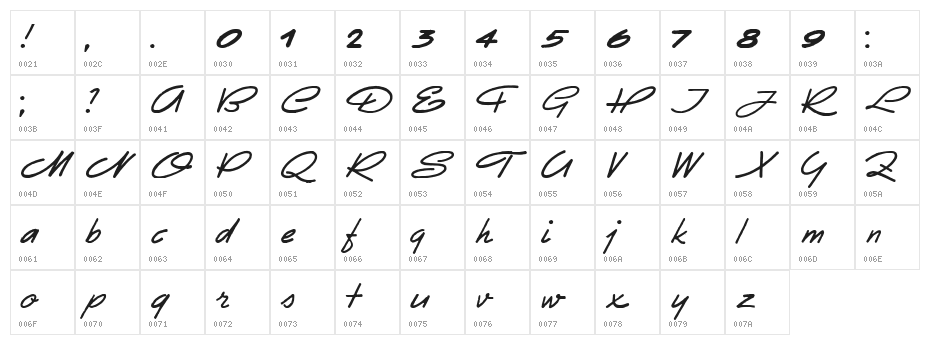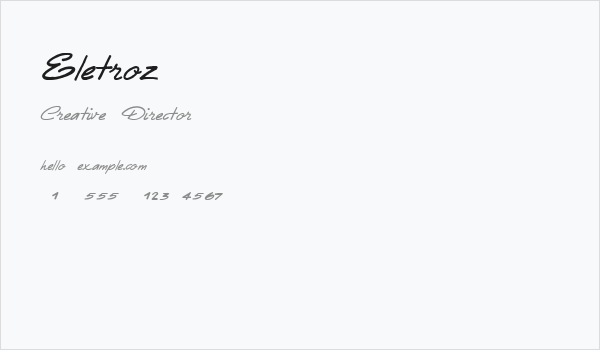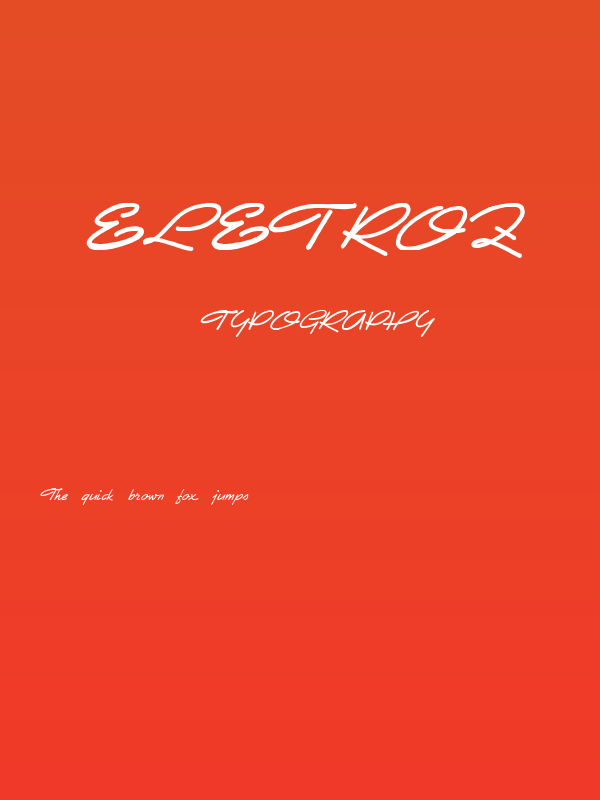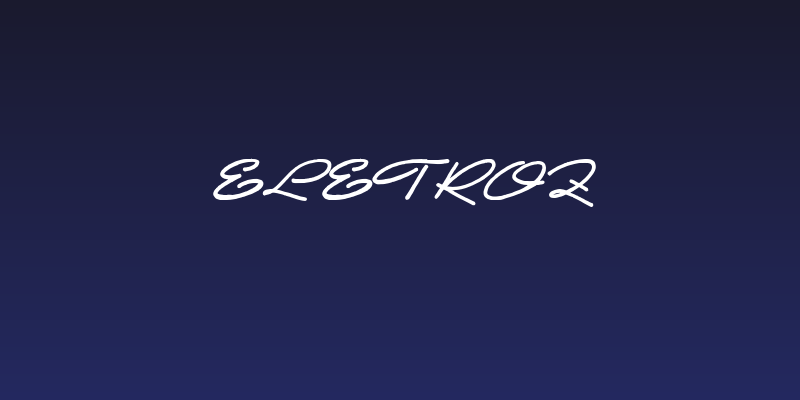
Eletroz Font
Eletroz Description
This font features a dynamic and fluid script style, characterized by its elegant, flowing curves and connected letterforms. The uppercase letters exhibit a sophisticated flair with sweeping ascenders and descenders, while the lowercase letters maintain a consistent, smooth flow. The numerals are designed to complement the overall script style, offering a harmonious blend of curves and lines. The special characters are crafted to match the script's aesthetic, ensuring a cohesive look across all glyphs. This font exudes a sense of elegance and creativity, making it suitable for projects that require a personal and artistic touch.
| Overall Style | Elegant, Artistic |